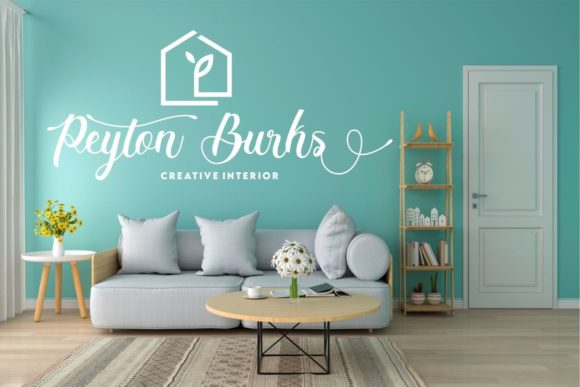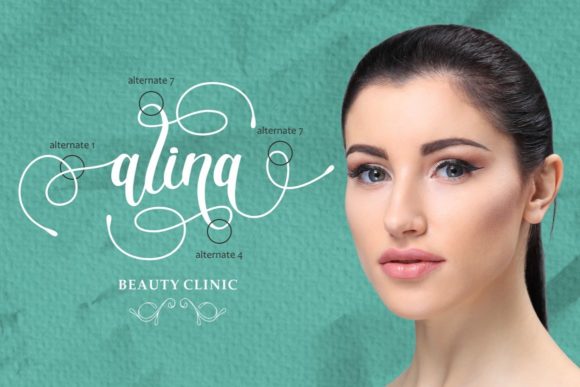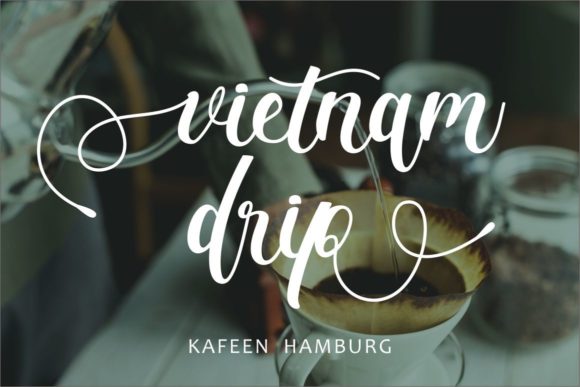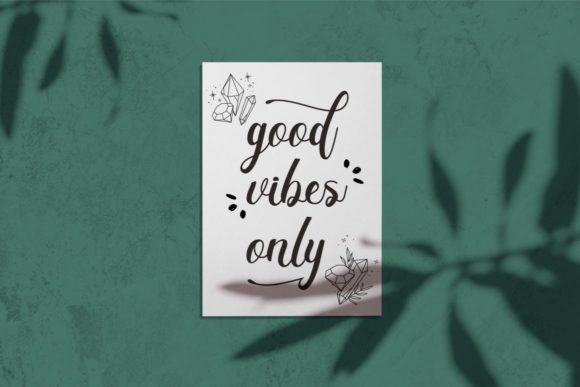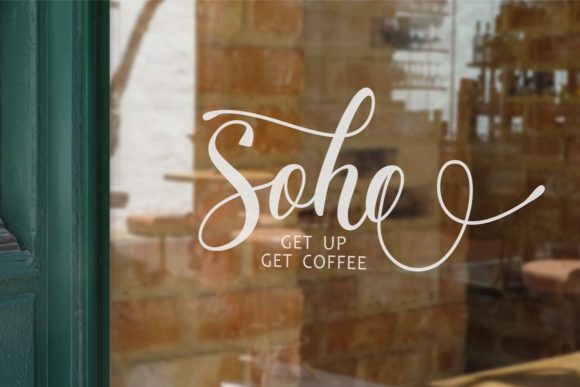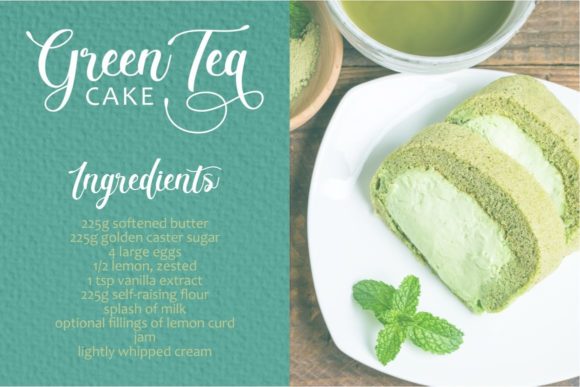
Introduction to Marriage Saga Font
Marriage Saga is a delicate, elegant and flowing handwritten font.
It has beautiful and well balanced characters and as a result, it matches a wide pool of designs This font is PUA encoded which means you can access all glyphs and swashes with ease.
Key Features of Marriage Saga Font
Why Choose Marriage Saga Font?